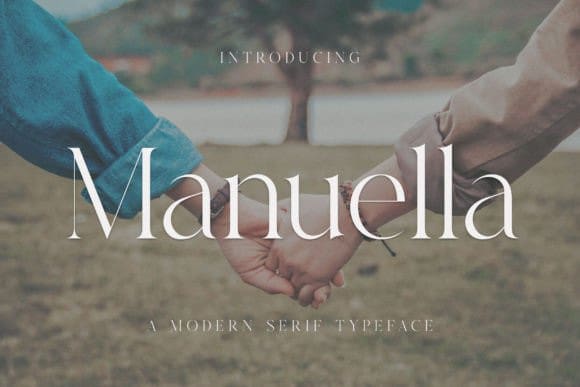
Manuella Font
Manuella Font – Serif Typeface Font, inspired by the famous minimalist logo perfect for the purposes of designing templates, brochures, videos, advertising branding, logos, invitations, layout design, elegant crafting, beauty design, and more.